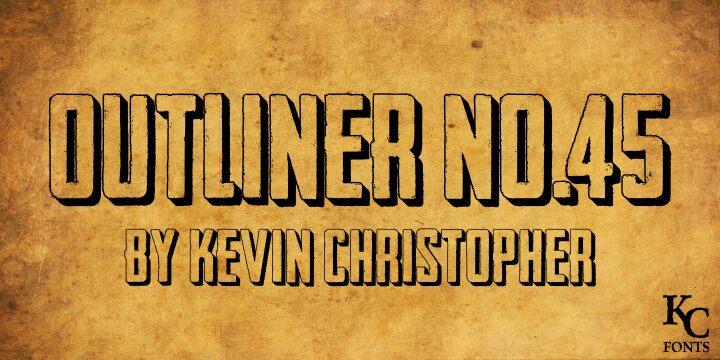
Outliner No. 45 DEMO
Outliner No. 45 is a captivating display font that exudes a bold, contemporary flair. Characterized by its distinctive 3D effect and subtly eroded edges, this condensed font emanates an alluring industrial aesthetic. The font's unique design elements lend it a striking, eye-catching presence, making it a compelling choice for headers, titles, and other high-impact typographic applications.
Pair Outliner No. 45 with its sibling, Headliner No. 45, to create a dynamic and visually arresting design duo that will elevate any project, from editorial layouts to packaging designs and beyond.